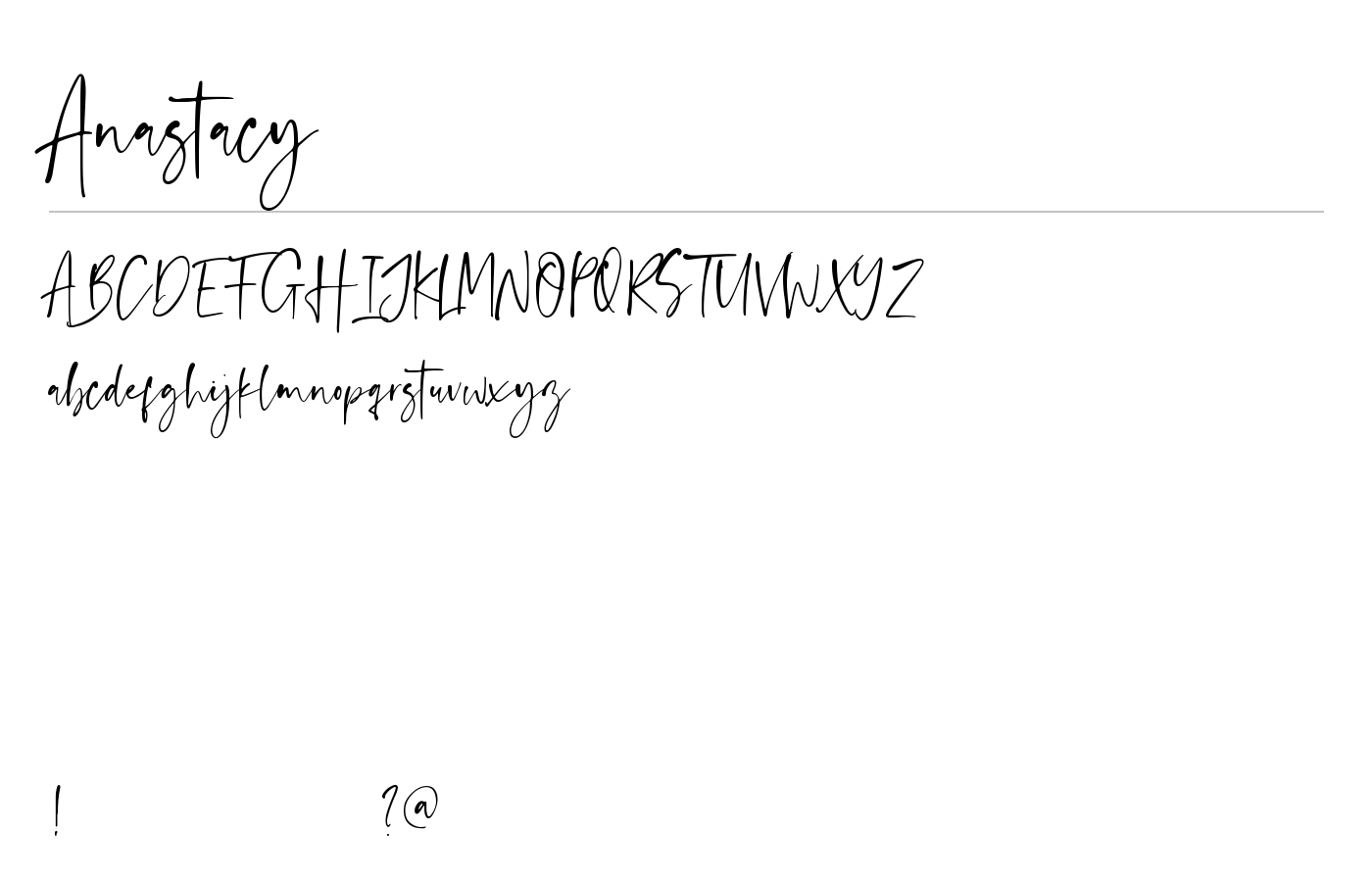
Anastacy is a delicate, handwritten script font featuring tall, slender letterforms with a natural, flowing style and varying stroke widths that lend it an elegant yet approachable feel. Its casual, slightly whimsical character makes it ideal for creative branding, invitations, and lifestyle projects that want to convey warmth and personality. This font works best in headlines and decorative text where its graceful charm can truly shine.
Anastacy Font
About Anastacy Font
| Font family | Anastacy Font |
| Designer | Sronstudio |